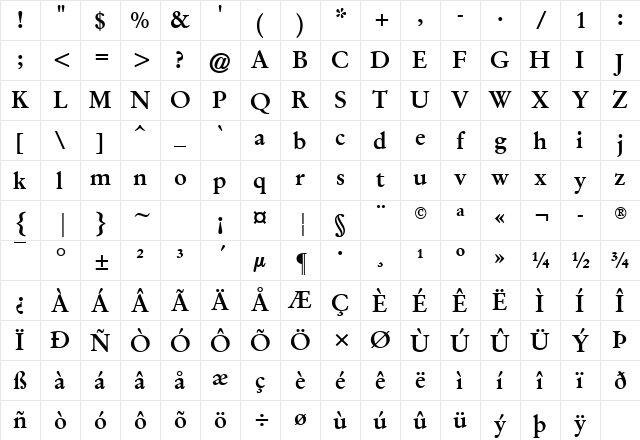
Garamond Halbfett
Style: Halbfett
Complete Garamond Halbfett glyph index. Displaying only characters natively supported by Garamond Halbfett font.
Design Context for Garamond
Garamond is a composed and adaptable typeface that performs quietly and consistently across a wide range of design contexts.